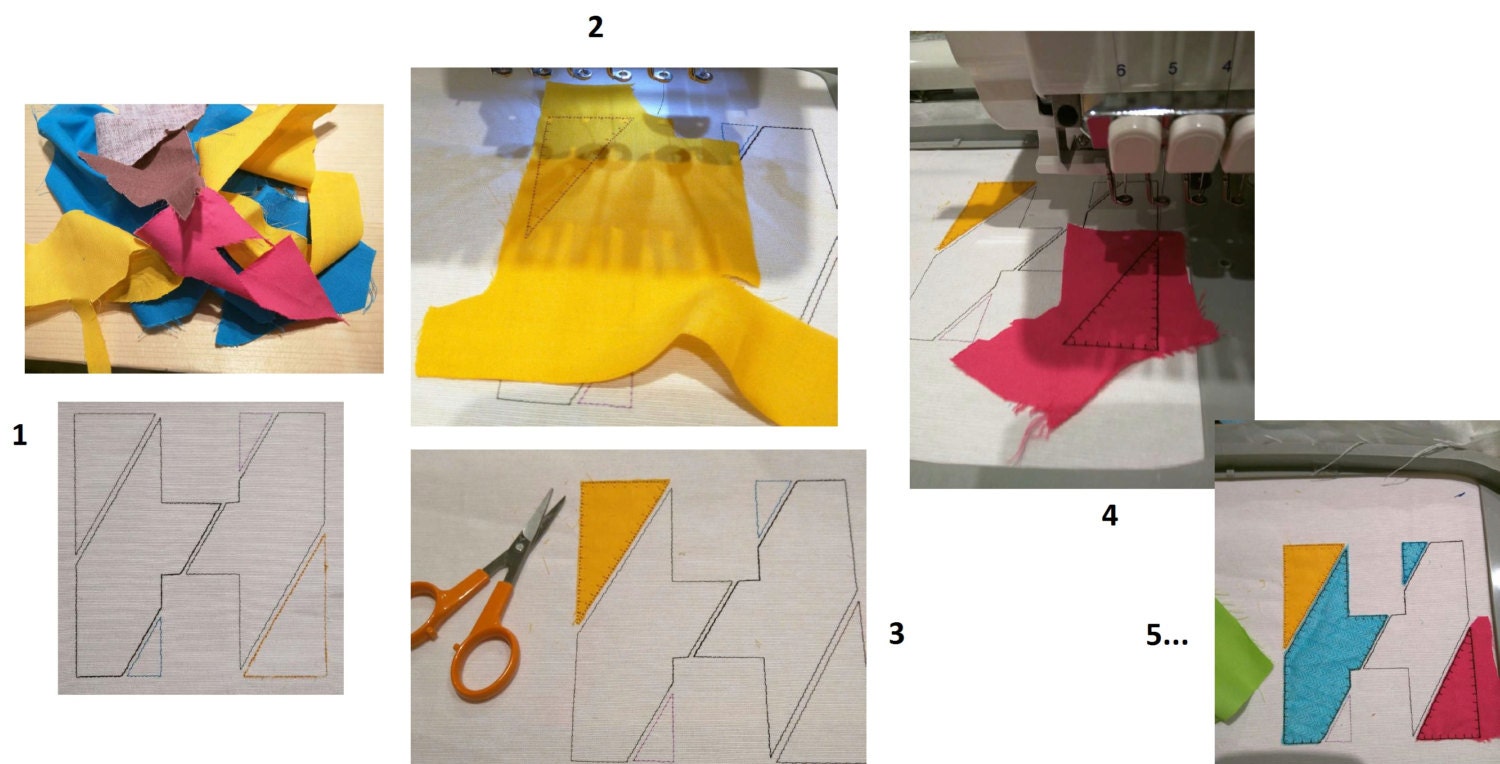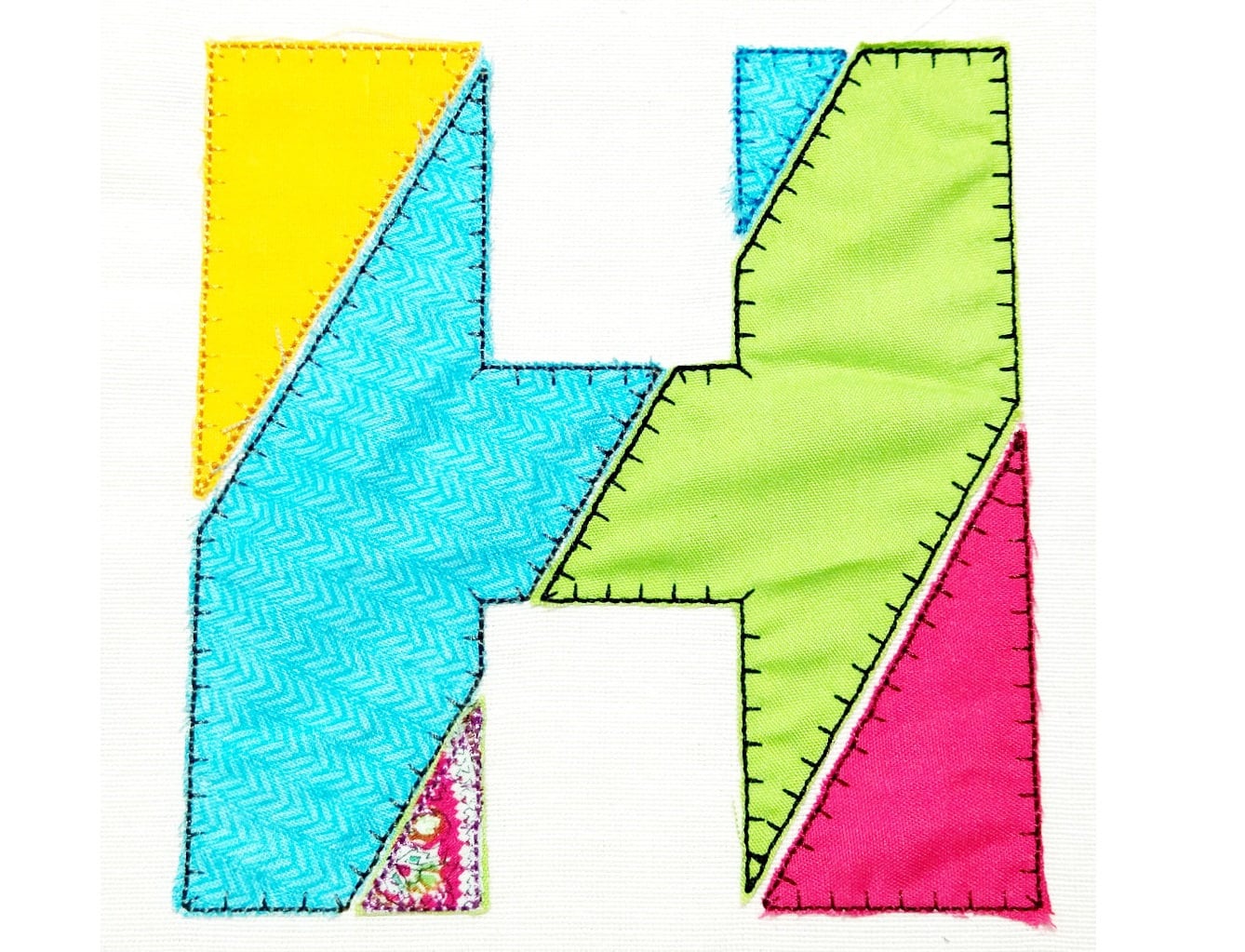
Diagonal Bias Patchwork Raggedy Edge Applique Alphabet and Numbers
Or click to open the linkA diagonal bias patchwork raggedy edge applique alphabet. Great for scrap quilts, birthday shirts and learning materials.
Capital letters A to Z and numbers 0 to 9. Five sizes: 3, 4, 5, 6 and 7 inches. Each patch section has its own placement line, so you can place each fabric color exactly.
- Diagonal patchwork raggedy applique font
- Capital letters A to Z, numbers 0 to 9
- 5 sizes, 3 to 7 in